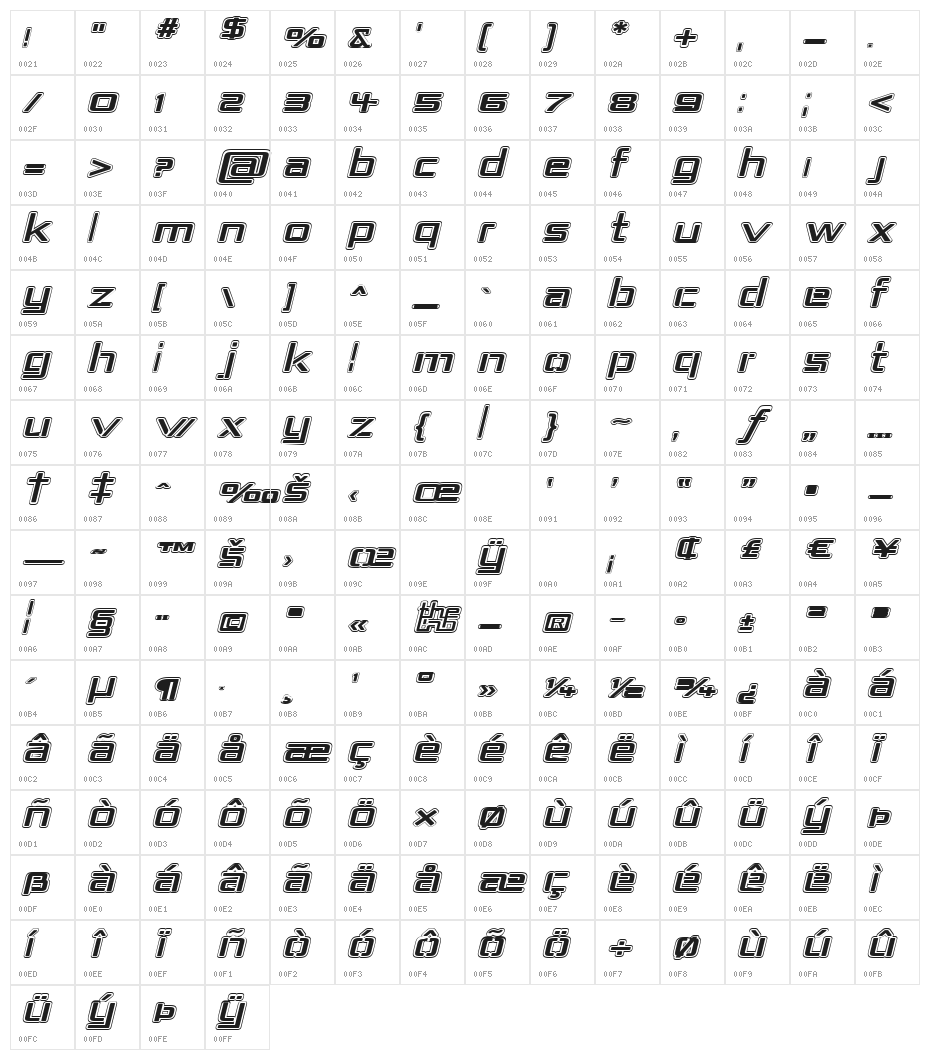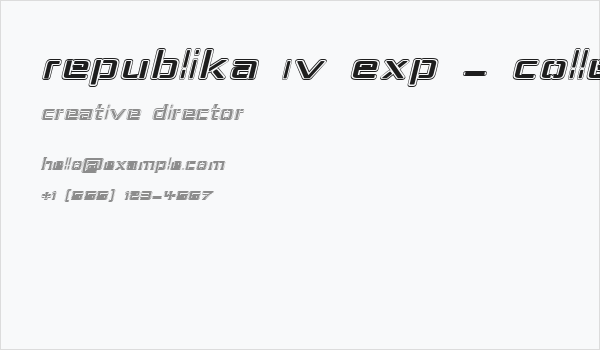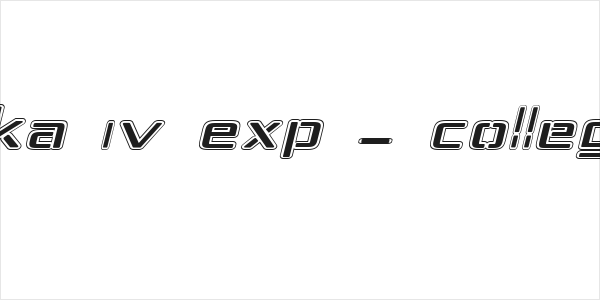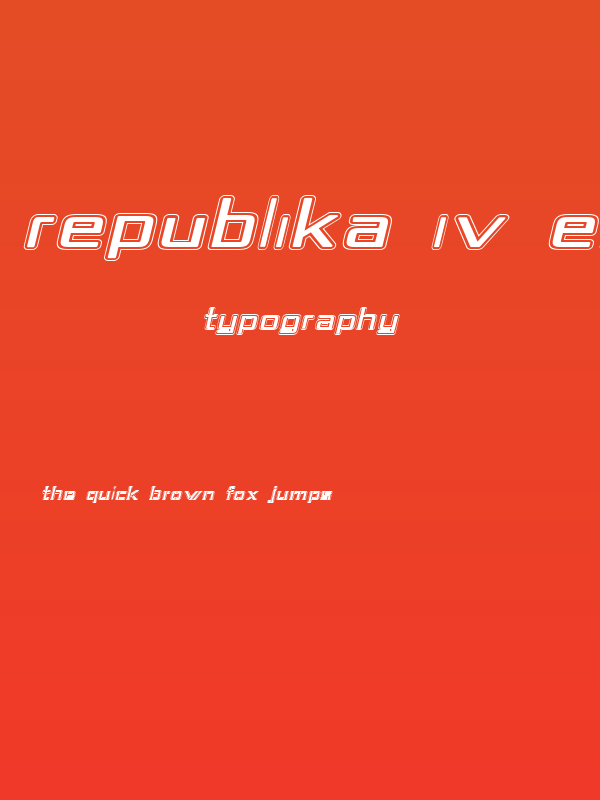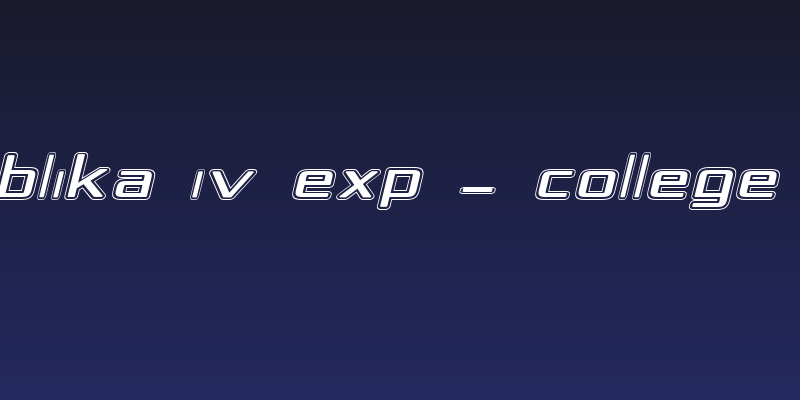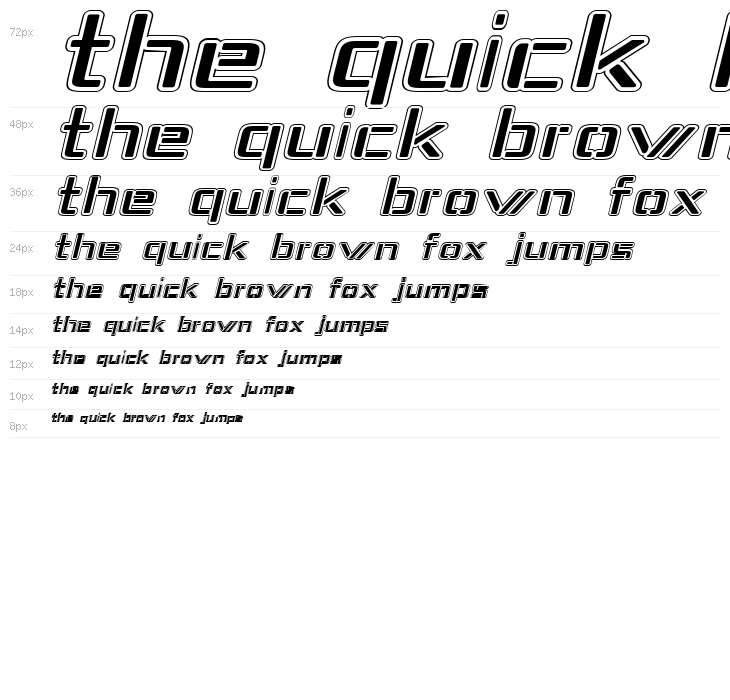
Republika IV Exp - College Italic Font
Republika IV Exp - College Italic Description
This font features a bold, italicized style with a distinct college-inspired aesthetic. The characters are outlined, giving them a three-dimensional appearance that stands out. Each letter and number is designed with a consistent stroke width, providing a uniform look across the typeface. The italic slant adds a dynamic feel, making it suitable for attention-grabbing headlines or titles. The spacing between characters is moderate, ensuring readability while maintaining the font's bold presence. Special characters are included, matching the overall style and enhancing the font's versatility.